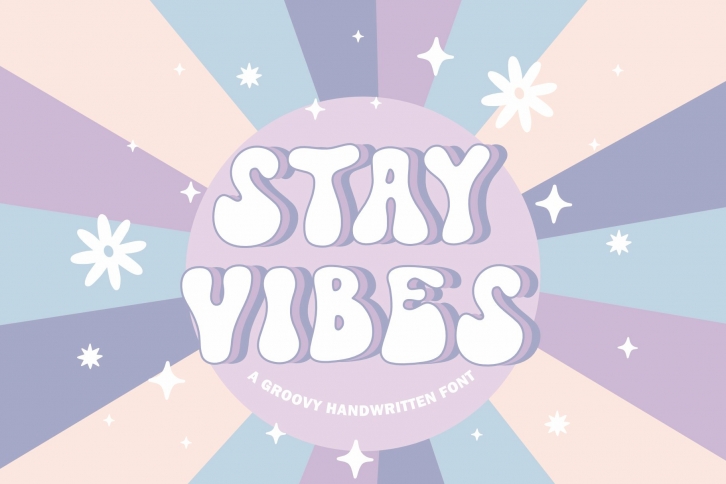
Stay Vibes is a great font that was designed by Jimtype Studio. Imagine the amount of combinations you can create using this font! The archive is 20.30 MB and it was released on October 14, 2021. Stay Vibes looks beautiful on wedding invitations, greeting cards, logos, posters, labels, t-shirt designs, logos, business cards and is perfect for use in ink or watercolor works, fashion, magazines, packaging and food menus, children's books and more!